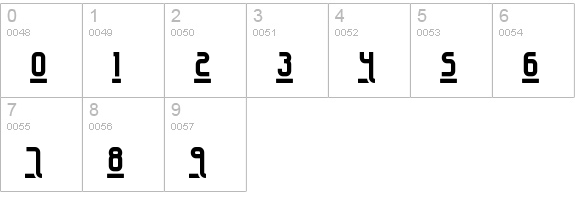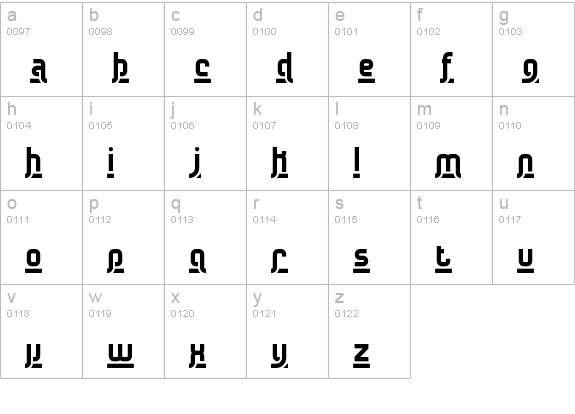
Underscore 2 BRK Font Details
Underscore 2 BRK font is a stunning display typeface that exudes modernity and elegance. With its sleek and geometric design, this font is perfect for adding a touch of sophistication to any project. But what sets Underscore 2 BRK font apart from others is its incredible versatility. Whether you're designing a logo, creating eye-catching headlines, or crafting a stylish poster, this font will effortlessly elevate your design to the next level. One of the best things about Underscore 2 BRK font is that it is freely available to download at FontsMarket.com. This means that you can easily access and utilize this amazing font without any cost. It's a fantastic opportunity for designers, students, or anyone looking to add a touch of professionalism to their work without breaking the bank. Underscore 2 BRK font features clean lines, sharp edges, and a balanced letterform that ensures legibility even at smaller sizes. It also includes a full set of uppercase and lowercase letters, numerals, punctuation marks, and a variety of special characters, making it a comprehensive font choice for any project. Whether you're working on a print design, digital media, or web design, Underscore 2 BRK font will effortlessly adapt to your needs. Its sleek and modern aesthetic will make your design stand out from the crowd, leaving a lasting impression on your audience. Download Underscore 2 BRK font for free at FontsMarket.com and experience the power of this remarkable typeface in your next design project.